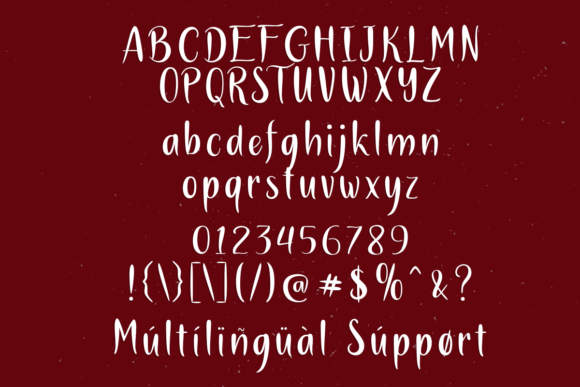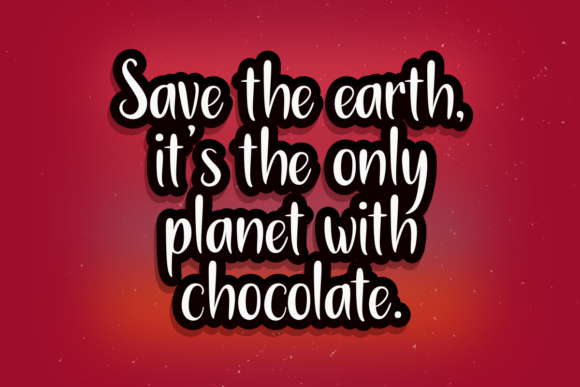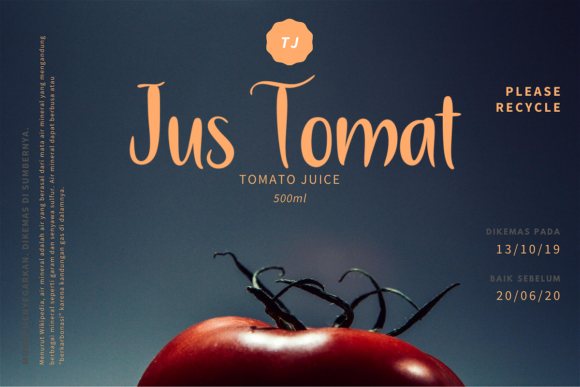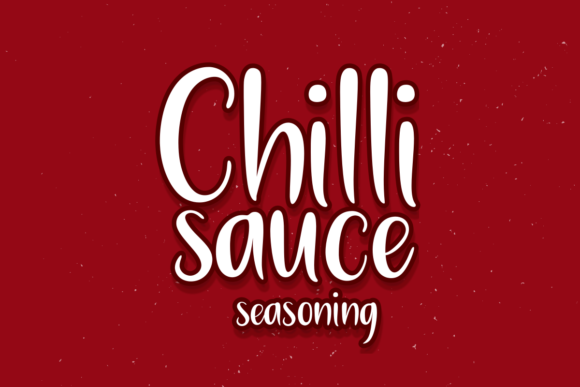
Red Gradient Font
About Red Gradient Font
Red Gradient results out of a stunning pairing of a brush pen and pencil that makes it look incredibly endearing and authentic. Use this gorgeous and unique handwritten font to bring any DIY project to life!